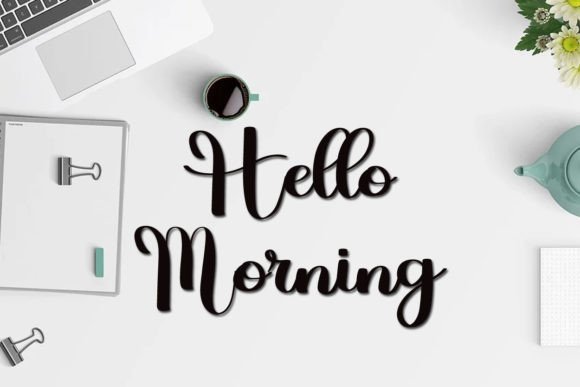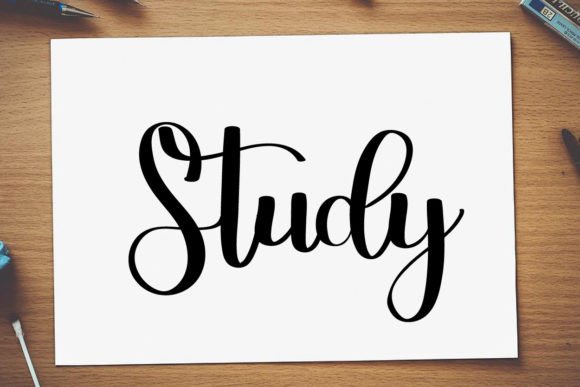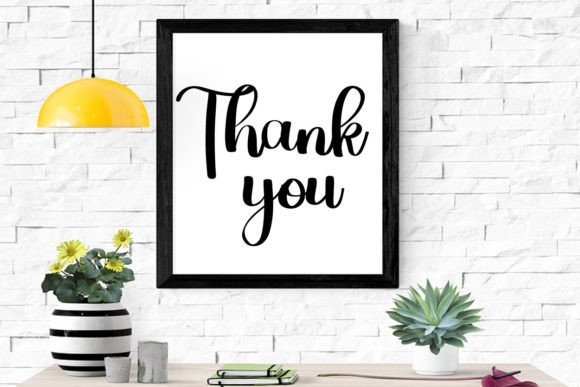
Baby Hoky Font
About Baby Hoky Font
“Baby Hoky” is more than just a font; it’s a fresh and relaxed script typeface designed to bring a delightful touch to your creative projects. Ideal for a range of applications, this font is well-suited for YouTube banners, logos, wedding invitations, crafts, or any project that requires a lovely and personalized touch.
The fresh and relaxed nature of “Baby Hoky” is evident in its script design. Crafted to convey a sense of playfulness and charm, this font is perfect for projects seeking a friendly and approachable look. Whether you’re creating content for YouTube, designing a logo, or working on wedding invitations, “Baby Hoky” adds a cheerful and welcoming vibe to your text.
Versatility is a standout feature of “Baby Hoky.” It effortlessly adapts to different design contexts, making it a reliable choice for a wide range of creative projects. The font becomes a valuable asset for designers who want a typeface that seamlessly combines a relaxed feel with a personalized touch.
Introducing “Baby Hoky” to your font collection opens up a world of possibilities for creating content that exudes joy and friendliness. The font stands out as a versatile tool that can enhance the visual appeal of your projects. Let “Baby Hoky” be the font that brings a touch of delight to your YouTube banners, logos, wedding invitations, and various other creative endeavors.
In summary, “Baby Hoky” is more than just a font; it’s a fresh and relaxed script typeface designed to infuse joy and charm into your projects. Embrace its playful and versatile nature, and confidently add it to your font library. “Baby Hoky” is an invitation to explore the delightful possibilities it brings to your design projects.